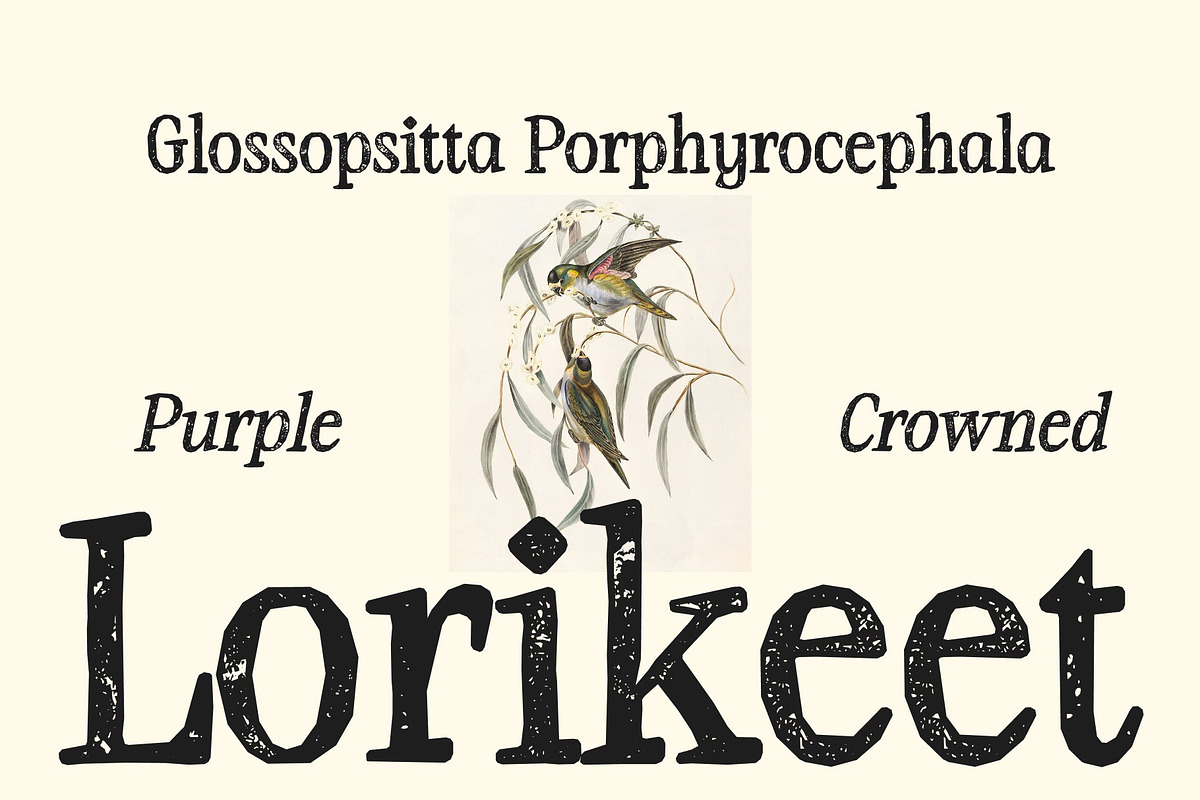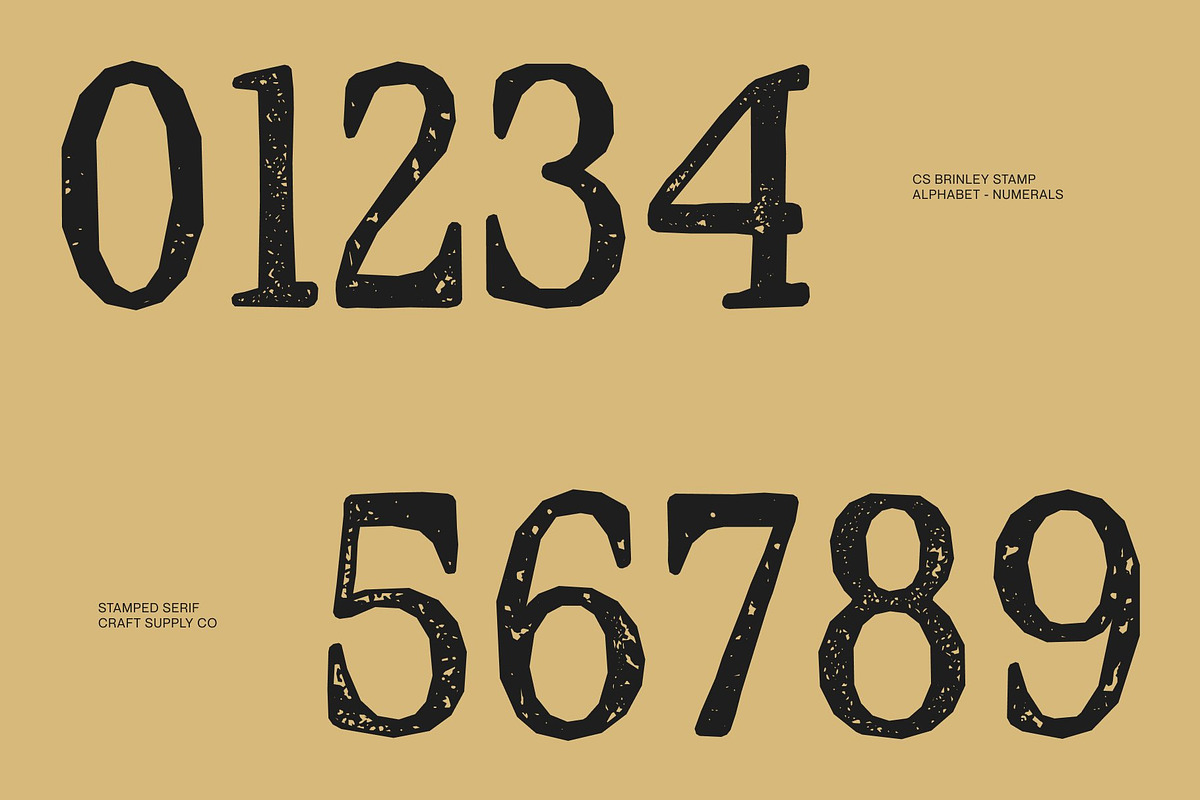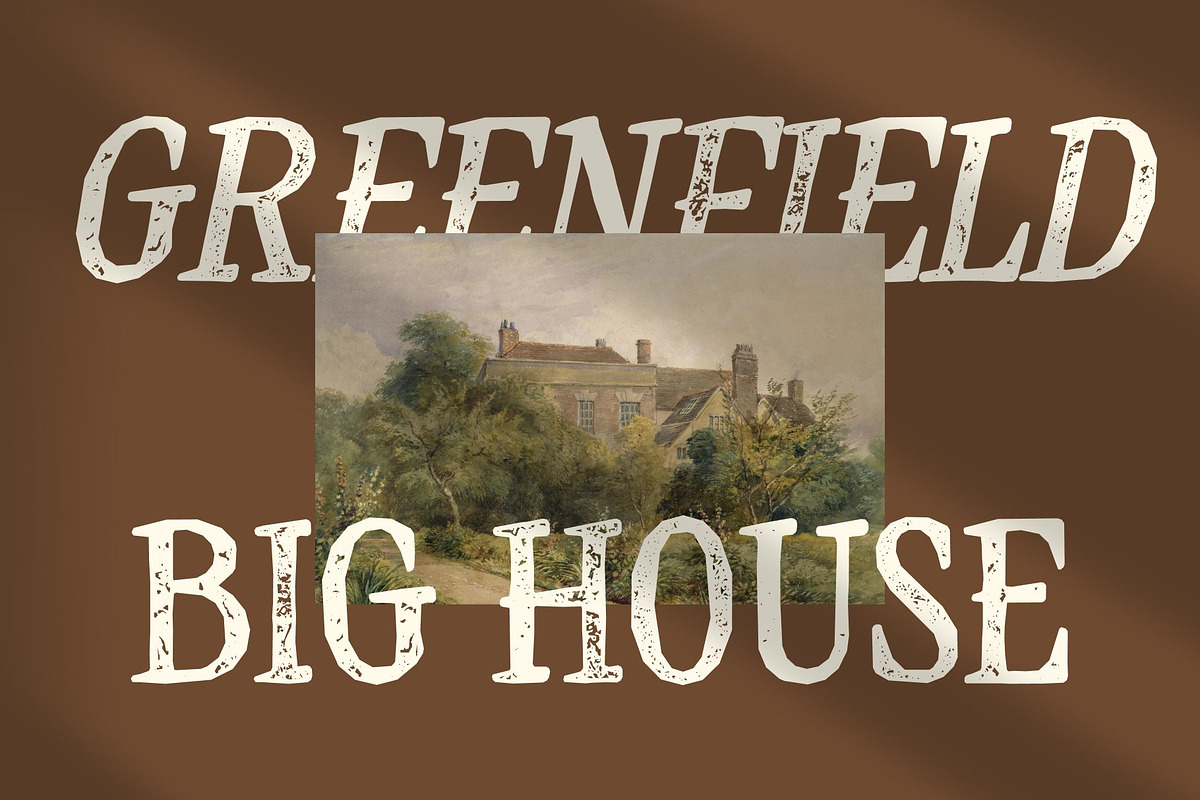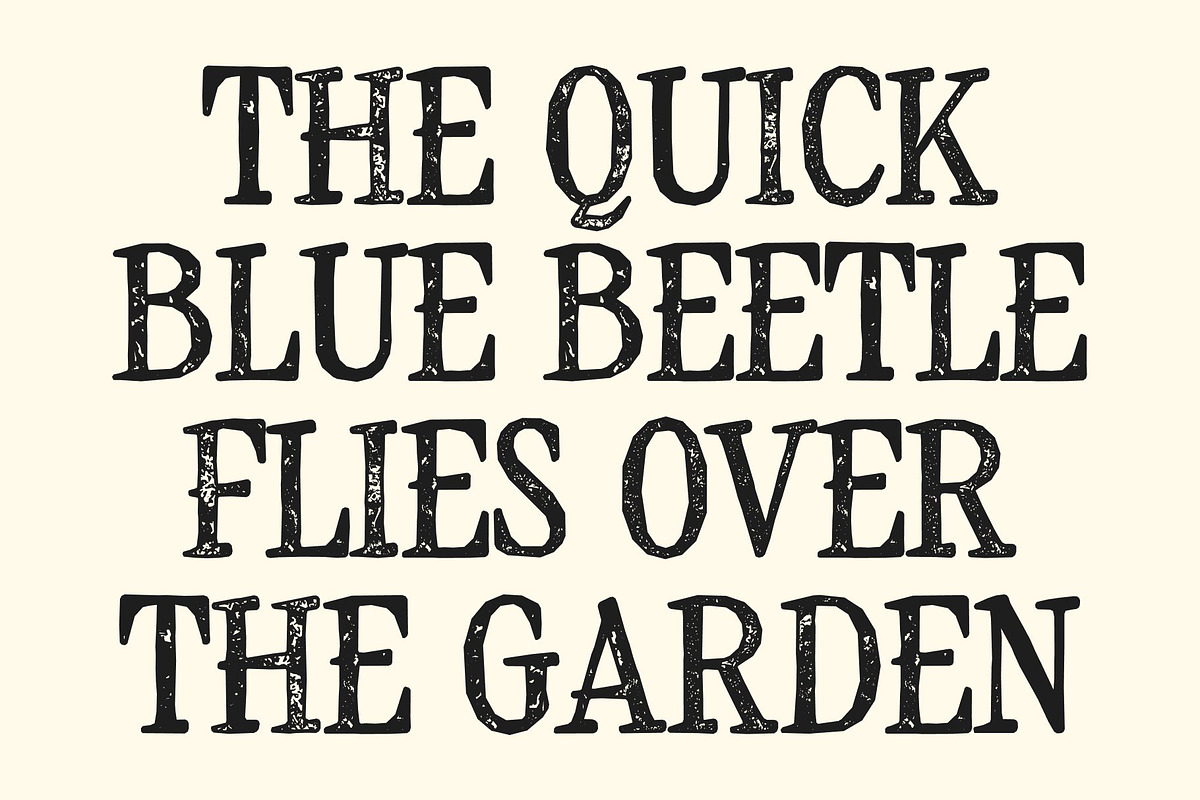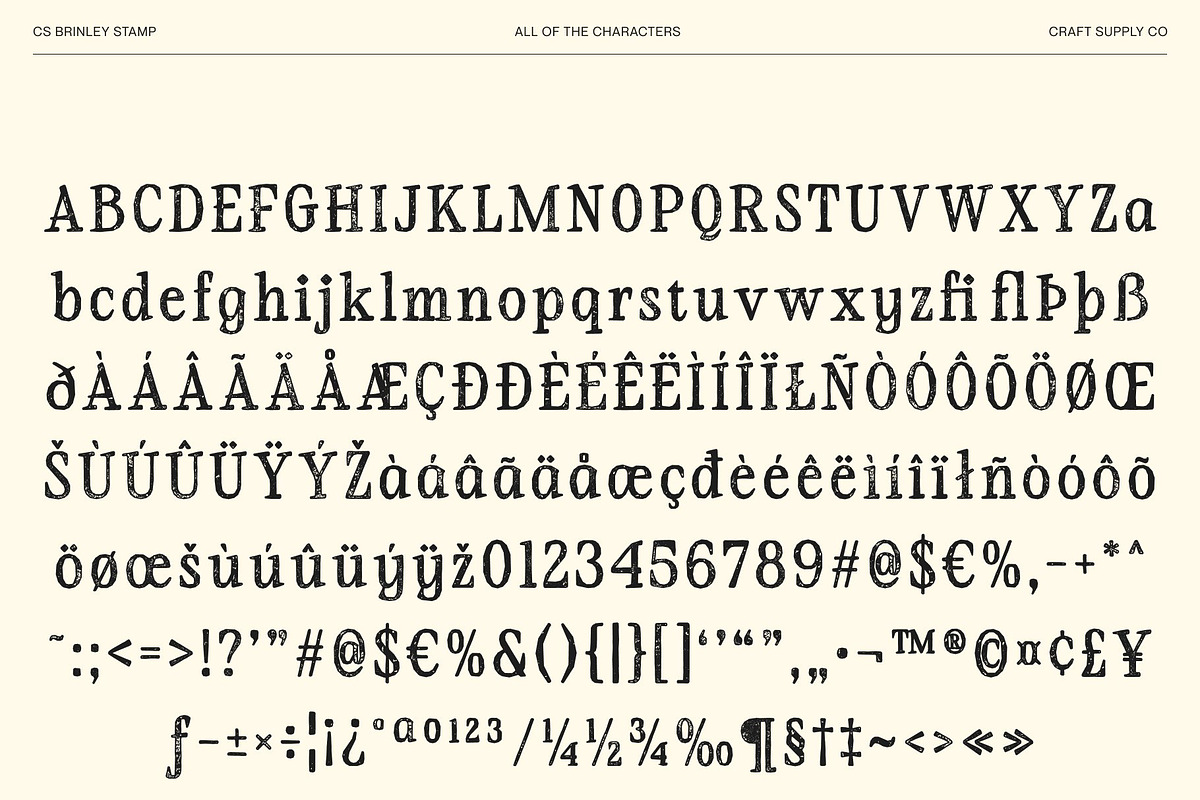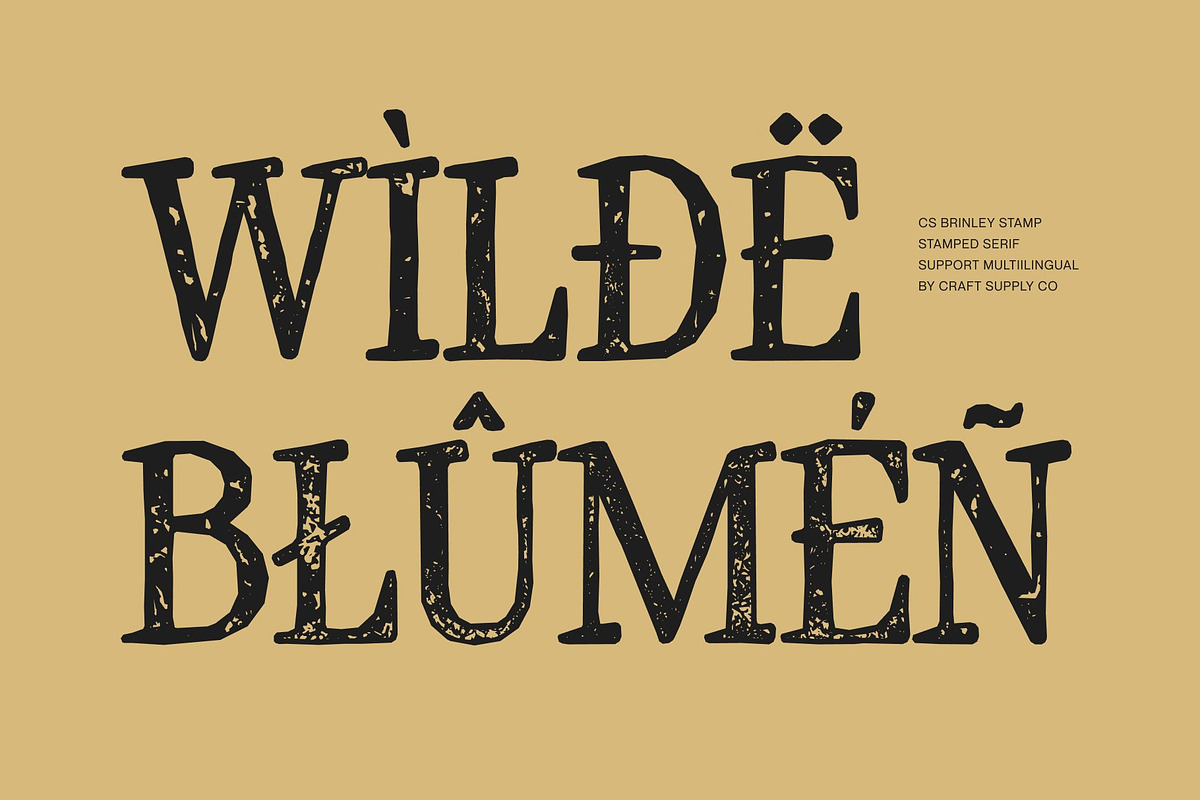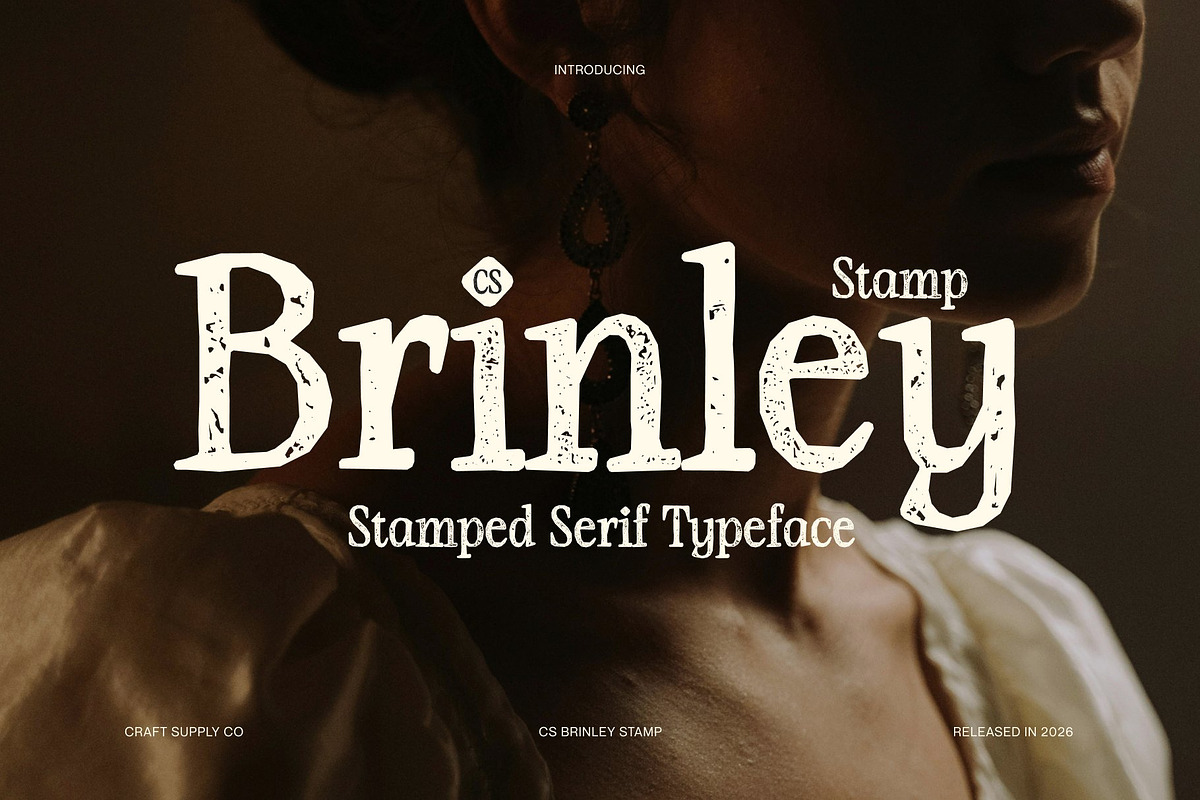
CS Brinley Stamp
CS Brinley Stamp – Timeless Serif with Textured Elegance
Refined Elegance with a Modern Touch This is a modern serif font that seamlessly blends classic sophistication with contemporary precision. Designed with clean lines, balanced proportions, and subtle detailing, it embodies a timeless aesthetic that feels both elegant and versatile. The stamped texture adds a gentle layer of character, giving the font a tactile, handcrafted quality while preserving its refined structure.
A Typeface that Radiates Luxury and Professionalism With its crisp letterforms and graceful serifs, conveys prestige, confidence, and professionalism. The textured stamp effect introduces a subtle vintage nuance that enriches its luxurious appeal. Whether used in luxury branding, fashion editorials, corporate identities, or premium packaging, the font enhances designs with a distinctive high-end atmosphere.
Perfect for Sophisticated Visual Identities This is ideal for projects that demand timeless charm and refined typography. Its elegant curves, sharp serif details, and textured finish create a harmonious blend of tradition and modernity. This makes it well-suited for magazine headlines, invitations, logos, advertising, and editorial layouts that require both clarity and style.
Designed to Leave a Lasting Impression For designers seeking a serif typeface that communicates elegance, heritage, and modern refinement, this font offers the perfect balance. Its versatility, sophistication, and subtle stamped texture make it an excellent choice for creating polished, memorable, and visually rich typography across both digital and print media.
CS Brinley Stamp Regular
CS Brinley Stamp Italic